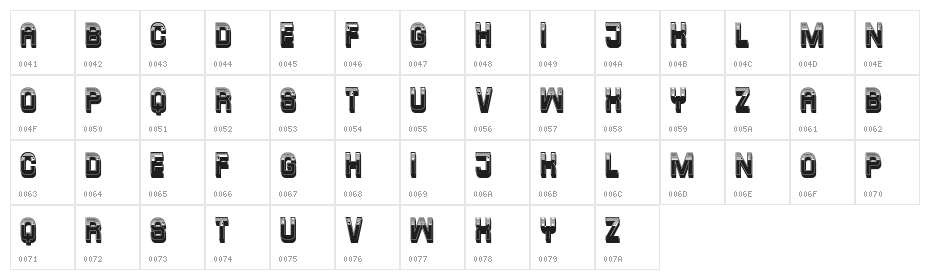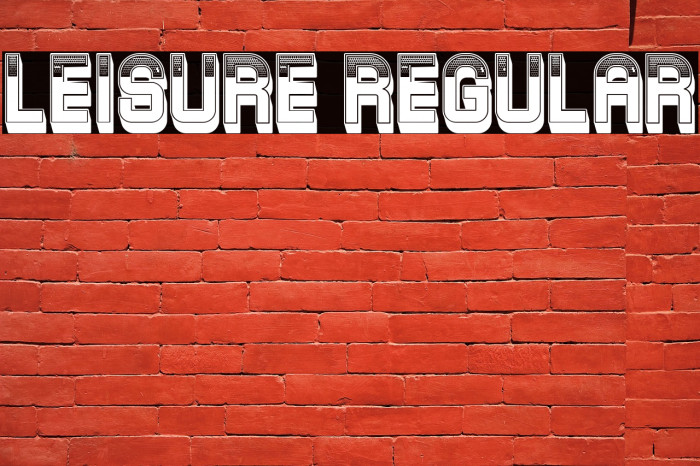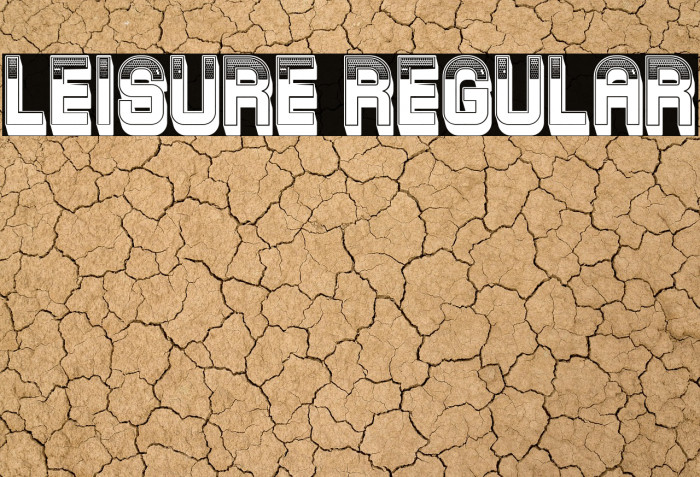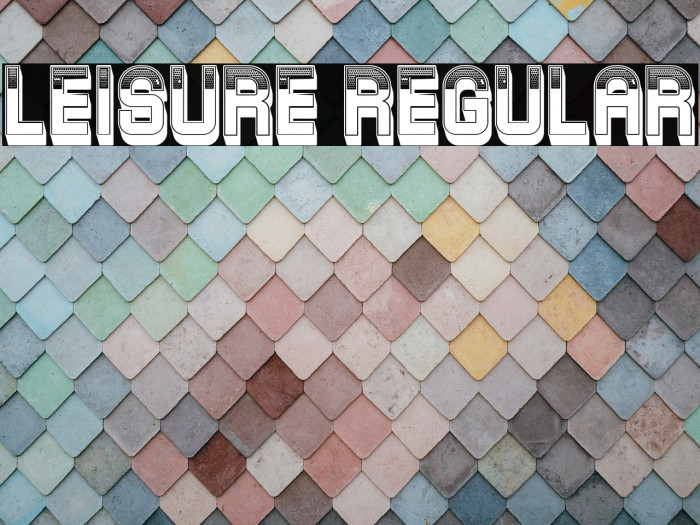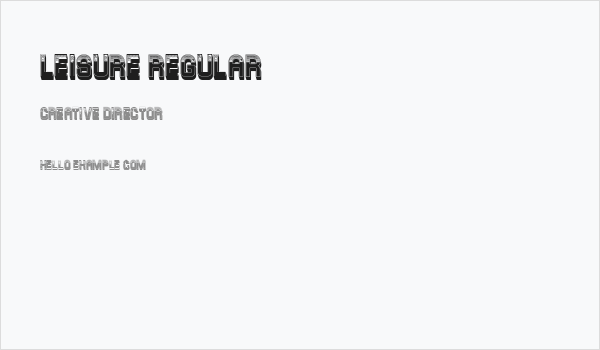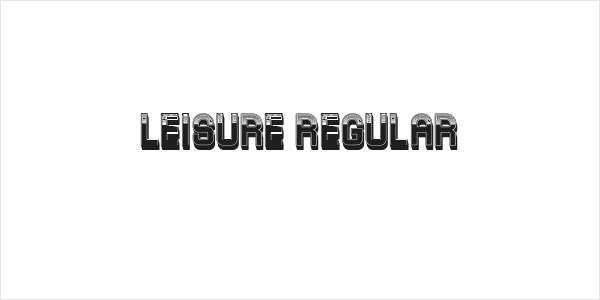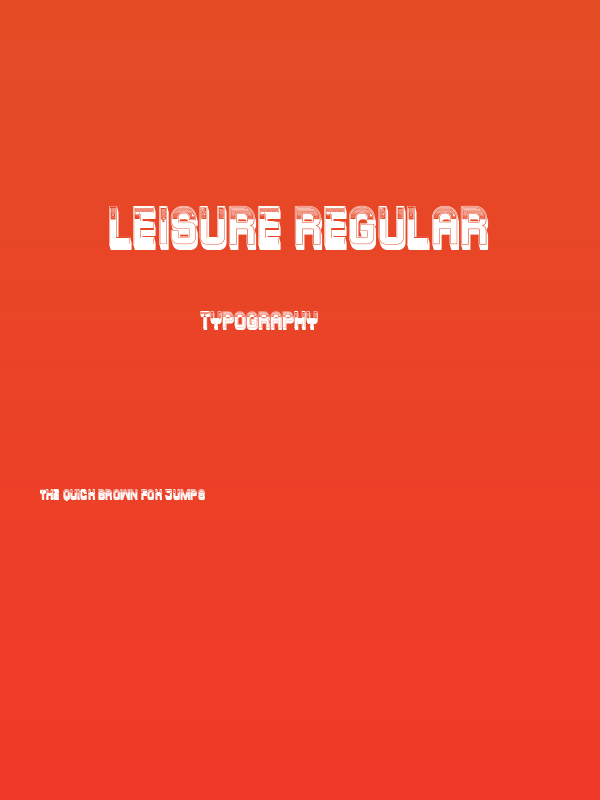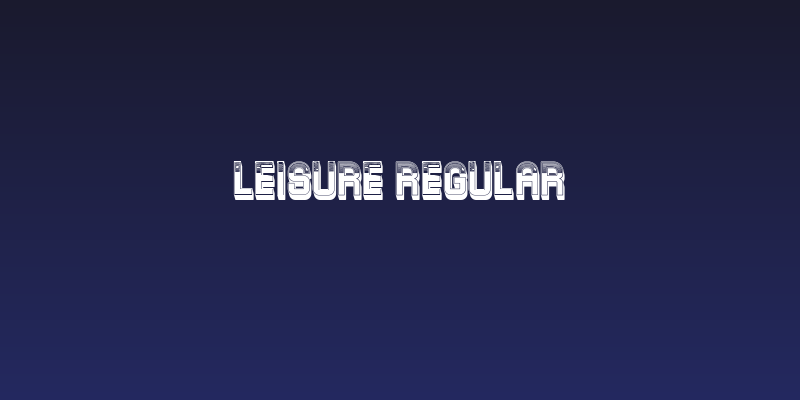
Leisure Regular Font
Leisure Regular Description
This font features a bold, three-dimensional style with a retro flair. The letters are uppercase and have a distinct shadow effect that gives them depth and a sense of movement. The design includes a dotted pattern within the characters, adding texture and visual interest. The overall look is reminiscent of vintage signage or comic book titles, making it eye-catching and dynamic. The font's structure is solid and geometric, with clean lines and sharp angles, ensuring readability while maintaining its decorative appeal.
| Proposed Projects | Ideal for vintage-themed posters, comic book titles, retro branding, or any project needing a bold, eye-catching display font. |